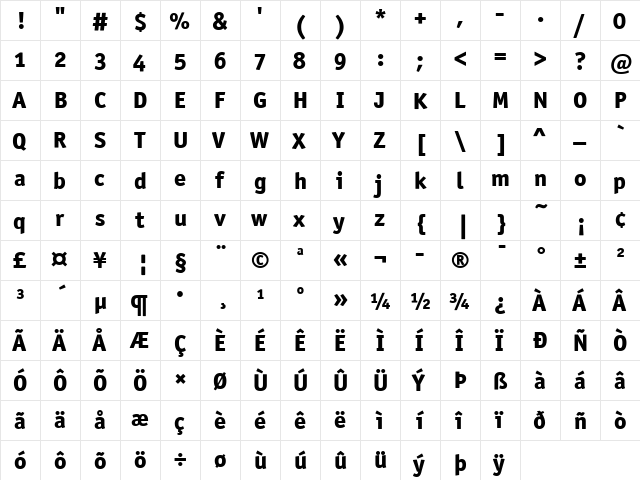
OfficinaSanITC Bold Font Preview
OfficinaSanITC Bold
OfficinaSanITC Bold Font Details
Design Context for OfficinaSanITC Typeface
OfficinaSanITC is a composed and adaptable typeface that performs quietly and consistently across a wide range of design contexts. The heavy weight commands attention and anchors typographic hierarchies.
Pro Tip: Pair OfficinaSanITC with a font of contrasting weight or personality to build a more expressive typographic hierarchy.